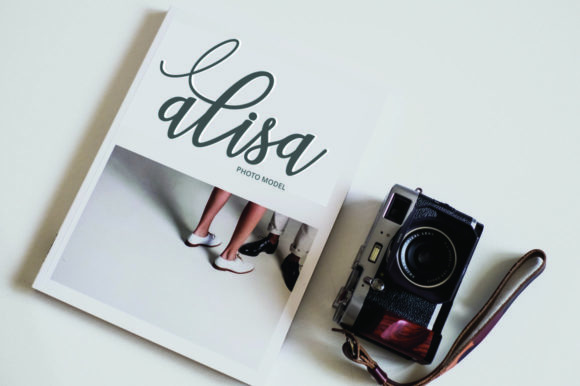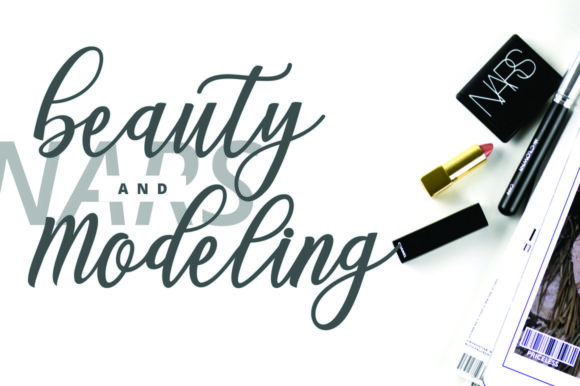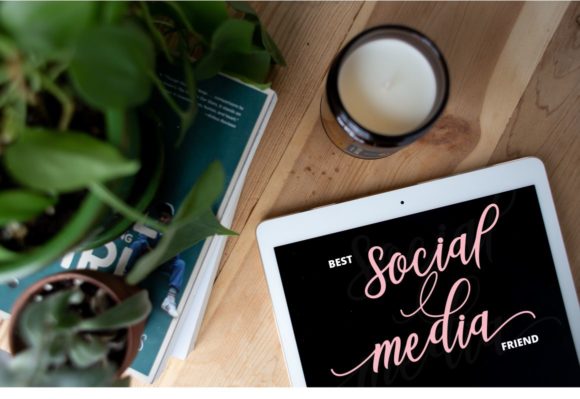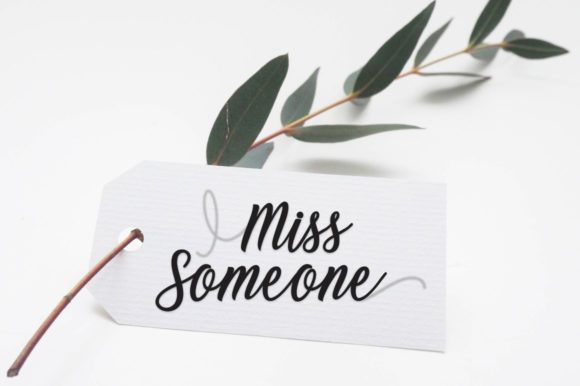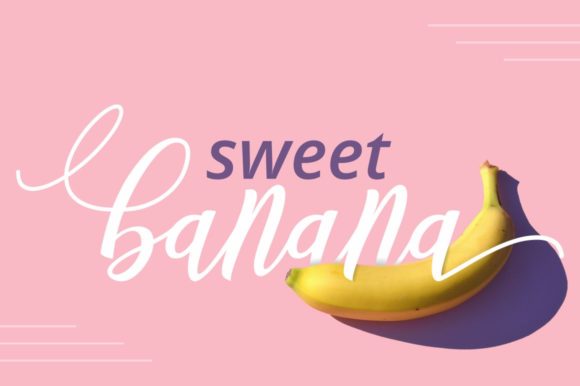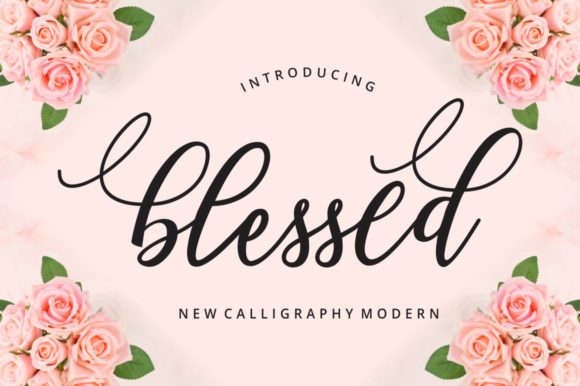
Blessed  Font
About Blessed  Font
The Blessed is a modern calligraphy font. Its elegant style is perfect for logos, website headers, fashion designs, wedding cards, and much more!